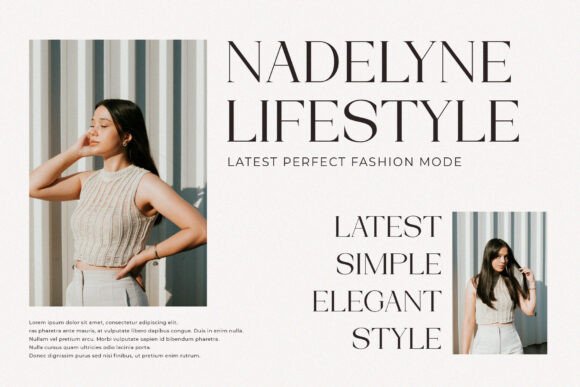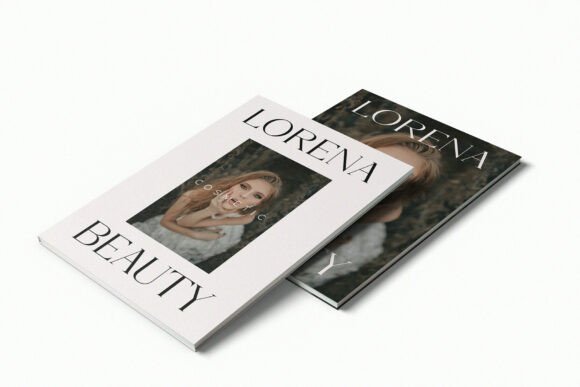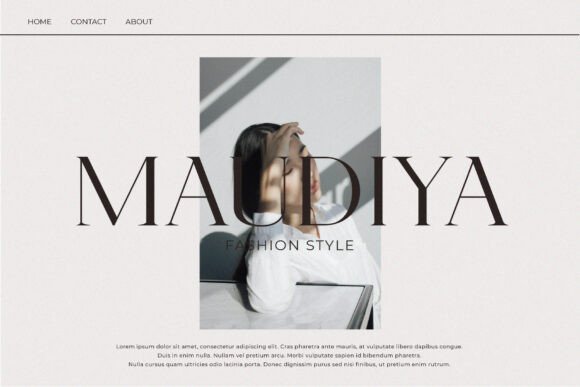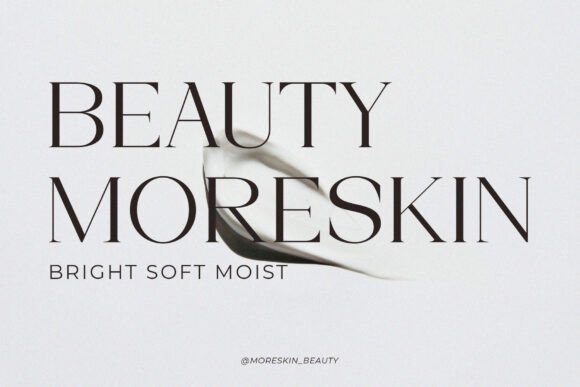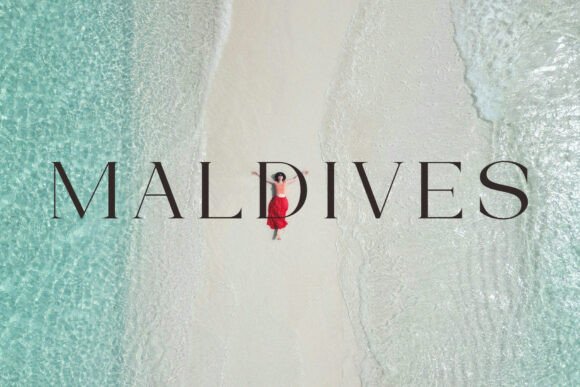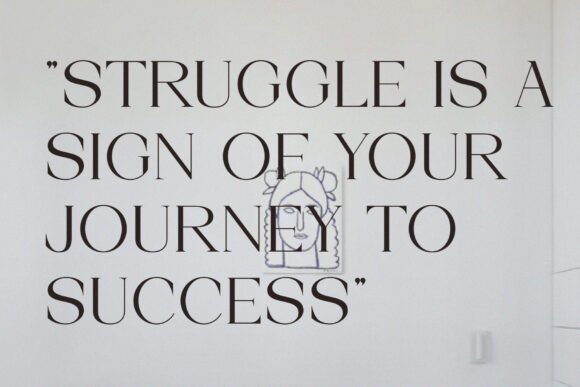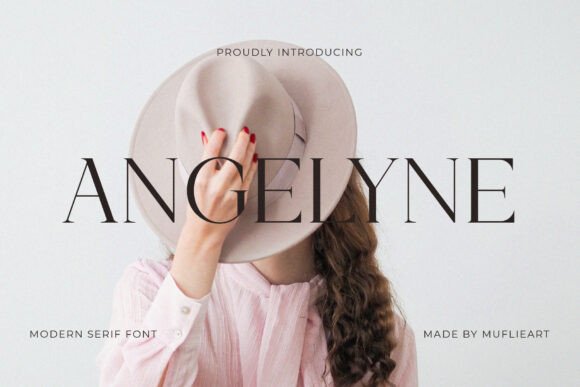
Discover the Elegance of Angelyne Font: Elevate Your Design with Sophistication
In the world of typography, few fonts manage to strike a balance between modern elegance and intellectual sophistication. Angelyne Font is one such exceptional typeface that redefines contemporary elegance with its airy, rhythmic silhouette. This modern serif font is designed to command the spotlight, offering a unique blend of delicate hairlines, balanced serifs, and custom ligatures that make it a standout choice for luxury lifestyle magazines, corporate branding, high-end apparel headers, and modern web interfaces.
The Distinctive Features of Angelyne Font
Angelyne Font boasts a wide silhouette characterized by sharp, balanced serifs and delicate hairlines. These features come together to create a visually appealing aesthetic that exudes intellectual sophistication while remaining accessible. The font’s design is meticulously crafted, with custom ligatures and interlocking connections that add a touch of bespoke, hand-crafted prestige.
One of the most notable features of Angelyne Font is its fluid āGā and āEā. These letters showcase the font’s graceful, interlocking connections, providing a sense of movement and fluidity. This attention to detail sets Angelyne apart from other serif fonts, making it an extraordinary choice for designers looking to add a touch of elegance to their projects.
Applications of Angelyne Font
Angelyne Font’s versatility makes it suitable for a wide range of applications. Its sophisticated aesthetic makes it an ideal choice for:
- Luxury Lifestyle Magazines: Angelyne Font’s elegant design and refined features make it perfect for high-end publications that require a sophisticated and luxurious feel.
- Corporate Branding: The font’s intellectual and accessible aesthetic makes it an excellent choice for corporate branding, conveying a sense of professionalism and expertise.
- High-End Apparel Headers: Angelyne Font’s modern and elegant design makes it suitable for high-end apparel headers, adding a touch of sophistication and luxury to fashion brands.
- Modern Web Interfaces: The font’s clean and minimalist design ensures that it remains legible on digital platforms, making it an excellent choice for modern web interfaces.
The Benefits of Using Angelyne Font
Angelyne Font offers several benefits to designers and crafters, including:
- Unyielding Professional Power: The font’s sophisticated aesthetic conveys a sense of professionalism and expertise, making it perfect for projects that require a high level of credibility.
- Polished Minimalist Beauty: Angelyne Font’s clean and minimalist design adds a touch of elegance and sophistication to any project, making it ideal for designers looking to create a visually appealing aesthetic.
Why Choose Angelyne Font?
Angelyne Font is a unique and exceptional typeface that offers a range of benefits to designers and crafters. Its sophisticated aesthetic, custom ligatures, and interlocking connections make it a standout choice for luxury lifestyle magazines, corporate branding, high-end apparel headers, and modern web interfaces.
Whether you’re looking to add a touch of elegance to your project or convey a sense of professionalism and expertise, Angelyne Font is an excellent choice. Its versatility, legibility, and refined features make it a cornerstone asset for any sophisticated project.
In conclusion, Angelyne Font is a modern serif font that redefines contemporary elegance. Its airy sophistication, delicate hairlines, and balanced serifs make it a standout choice for designers looking to create a visually appealing aesthetic. With its custom ligatures, interlocking connections, and bespoke feel, Angelyne Font is the perfect choice for luxury lifestyle magazines, corporate branding, high-end apparel headers, and modern web interfaces.